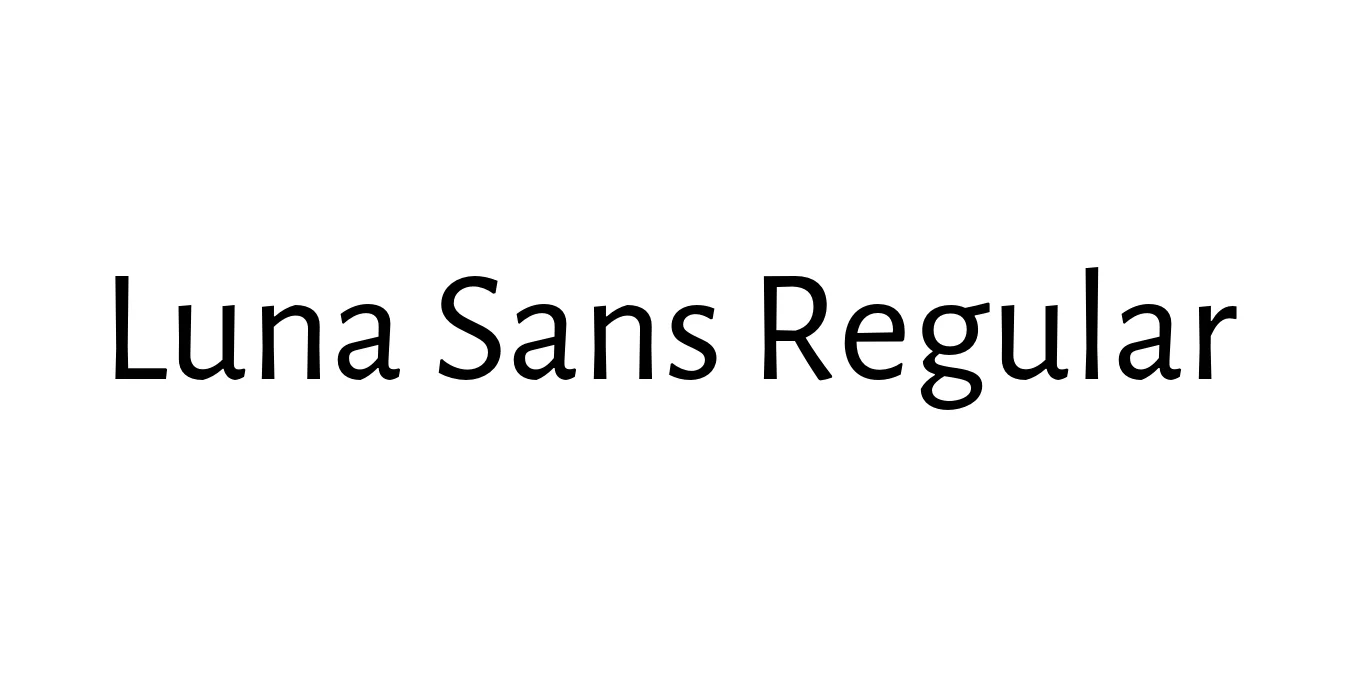
Luna Sans Regular
Designed by Emil Bertell (Fenotype)
Luna Sans Regular is a sophisticated geometric sans-serif typeface designed to provide a clean and modern aesthetic for contemporary design projects. Developed with a focus on clarity and versatility, this font features balanced proportions and open apertures that ensure excellent legibility across both digital and print mediums. Its minimalist structure makes it an ideal choice for brands looking to convey a sense of professionalism and innovation without sacrificing approachability.
Originally part of a larger type family, the Regular weight stands out for its neutral yet characterful presence. Over the years, it has become a staple for web designers and graphic artists who require a reliable typeface for user interfaces, editorial layouts, and corporate identity systems. The font's rhythmic spacing and precise geometric construction allow it to perform exceptionally well in long-form body text as well as in bold, impactful headlines.
Luna Sans Regular Best Uses
Perfect for mobile apps and websites due to its high legibility on screens.
Ideal for creating modern logos and consistent corporate identities.
Works beautifully for brochures, business cards, and magazine layouts.
Effective for digital banners, social media graphics, and promotional posters.